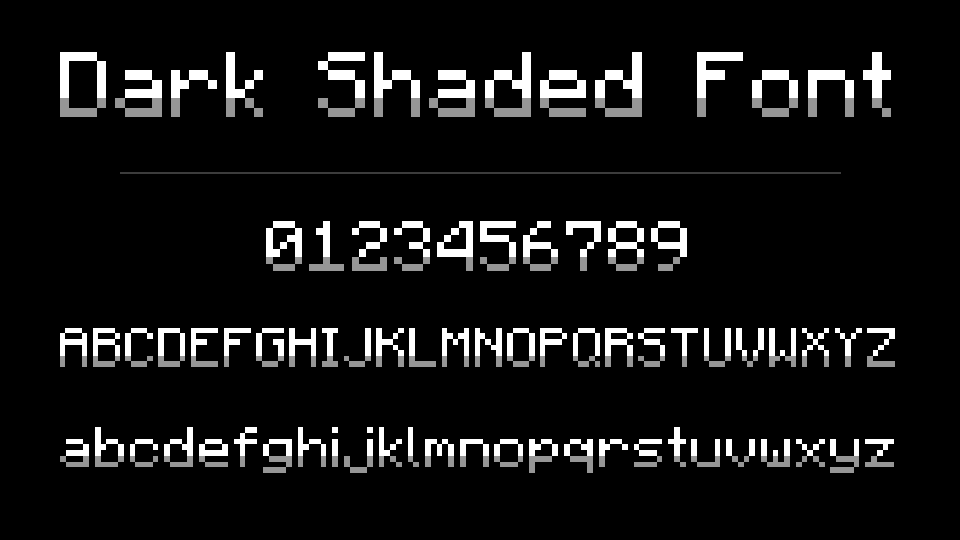
Dark Shaded Font
Dark Shaded Font adds a soft dark shade to the bottom of every letter in Minecraft's font, so text gains depth without a single glyph shape changing. Shades ASCII, accents and the enchanting-table alphabet. Inspired by philliamm's Shaded Font.